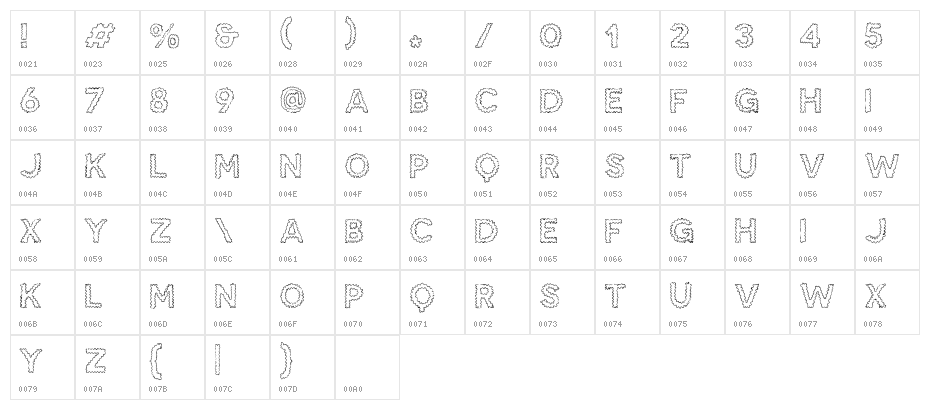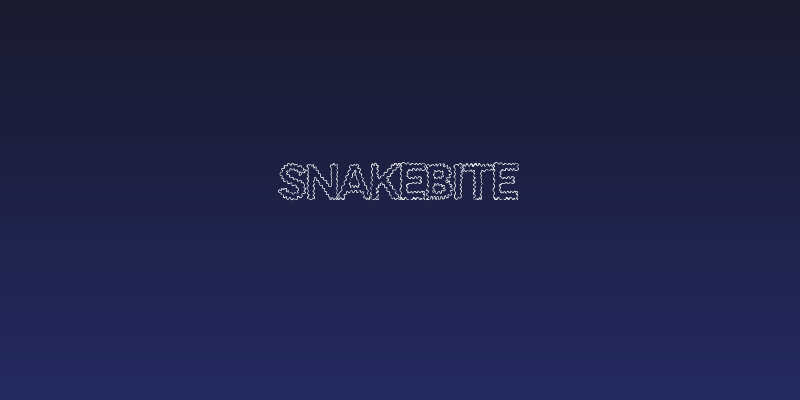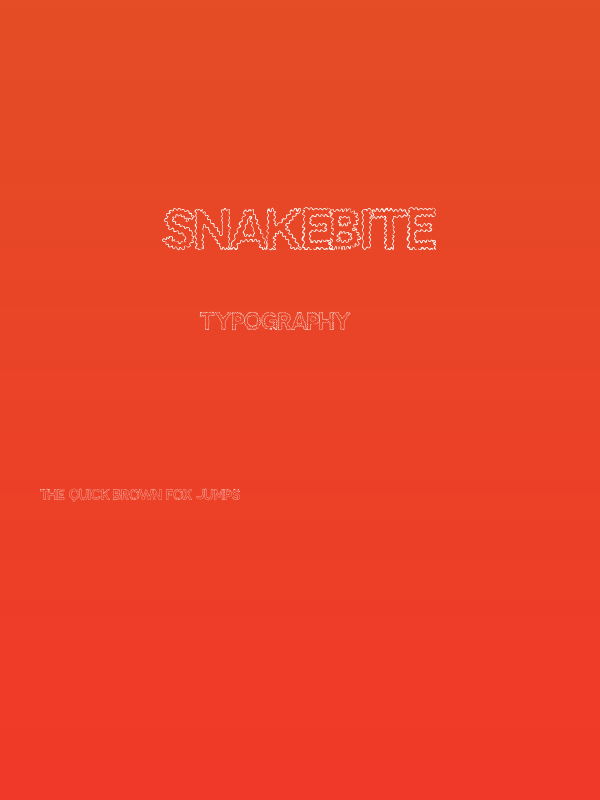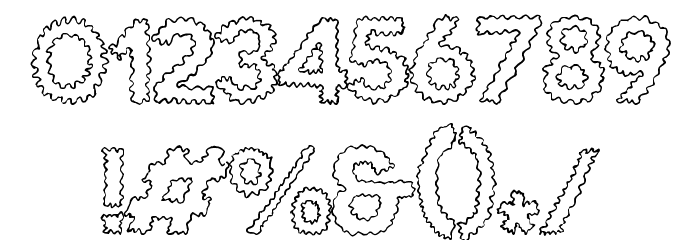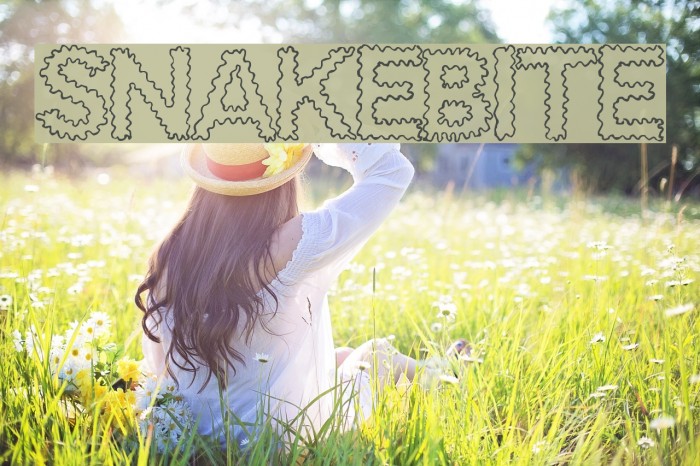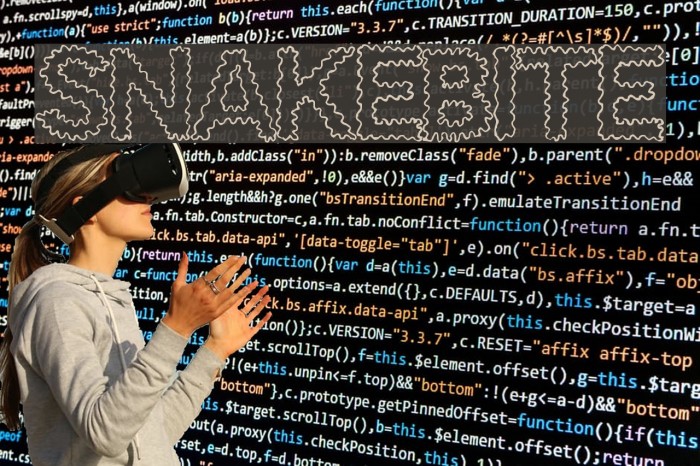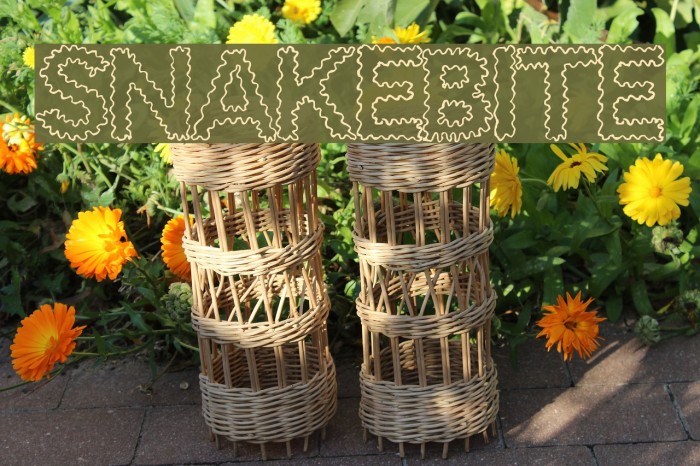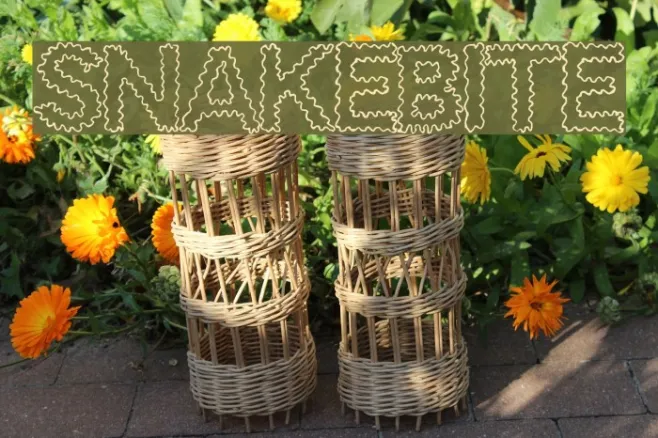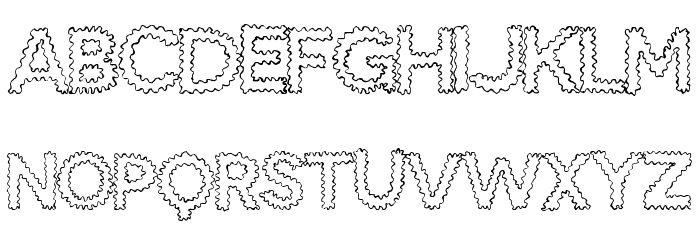
SnakeBite Font
SnakeBite Description
This font features a unique and playful design with a jagged, zigzag outline that resembles the movement of a snake. Each character is outlined with a wavy, irregular pattern, giving it a dynamic and energetic appearance. The letters are bold and uppercase, with a consistent thickness throughout, creating a strong visual impact. The numbers and special characters follow the same design, ensuring a cohesive look across all glyphs. This font is ideal for projects that require a fun and eye-catching style, such as children's books, party invitations, or playful branding.
| Overall Style | Playful, Energetic |
| Proposed Projects | Children's books, party invitations, playful branding, posters. |